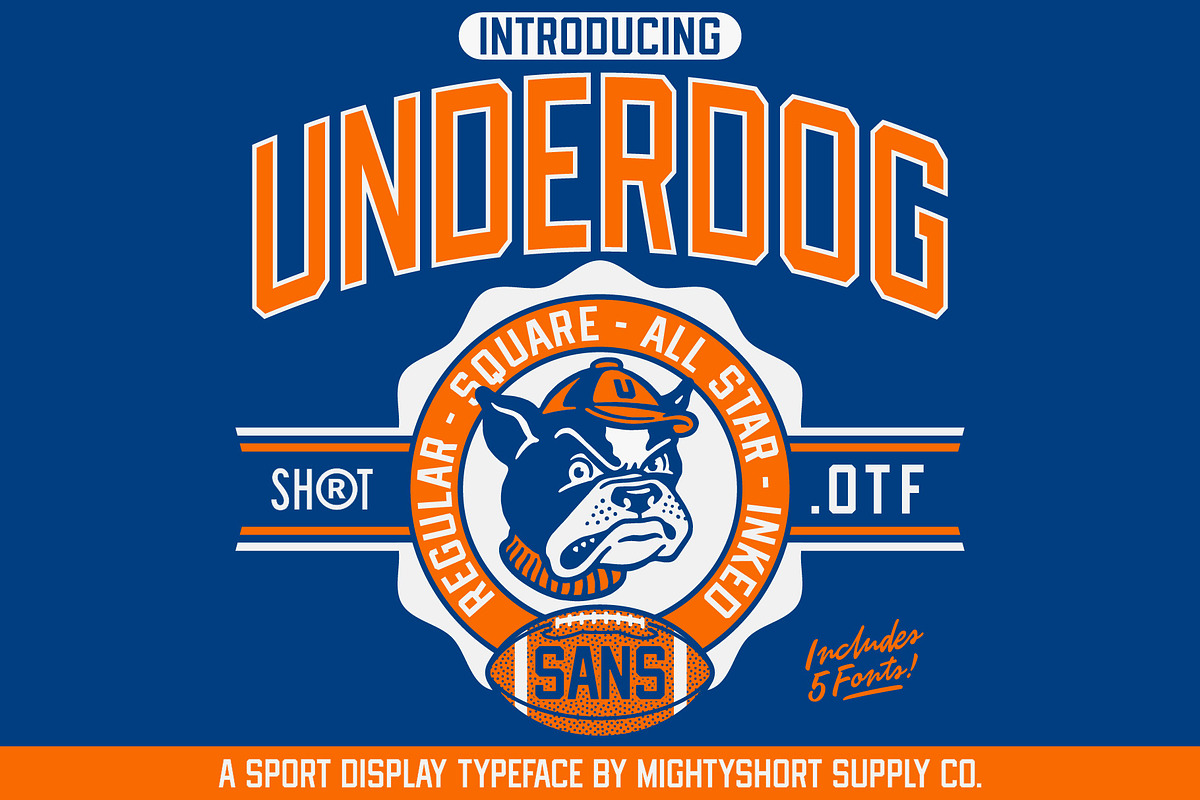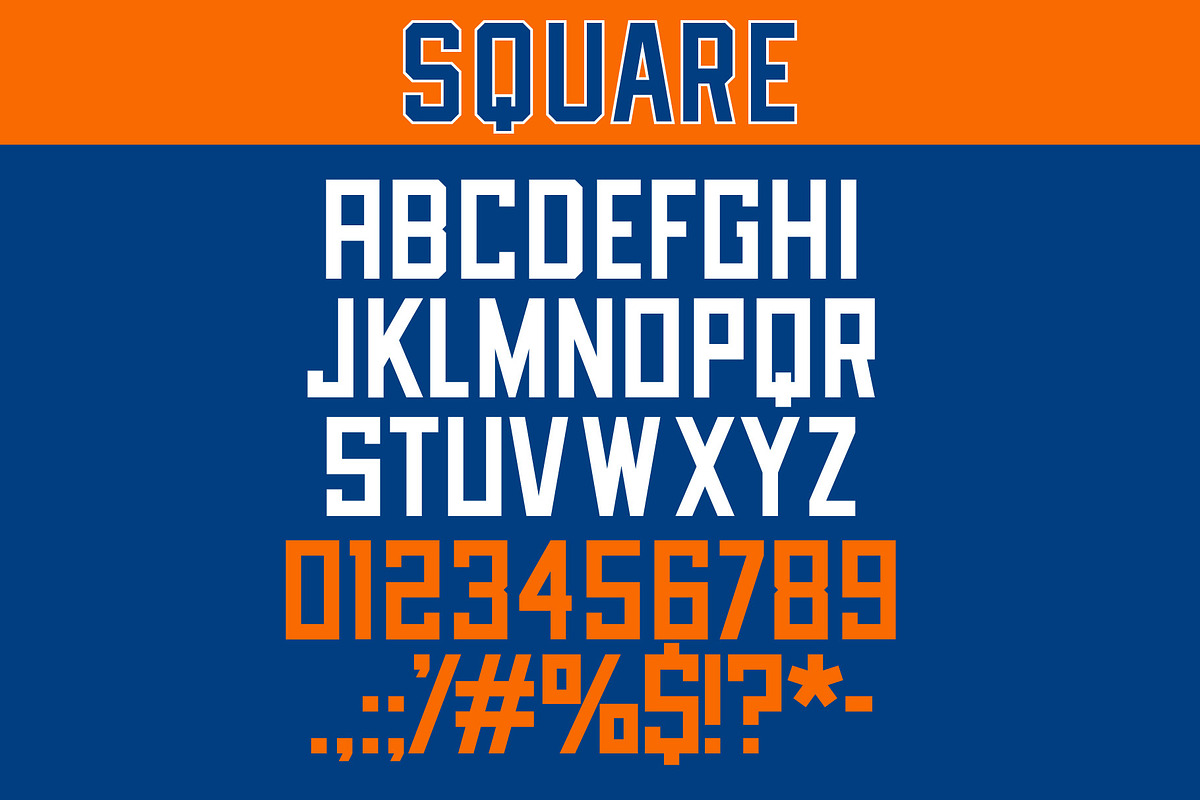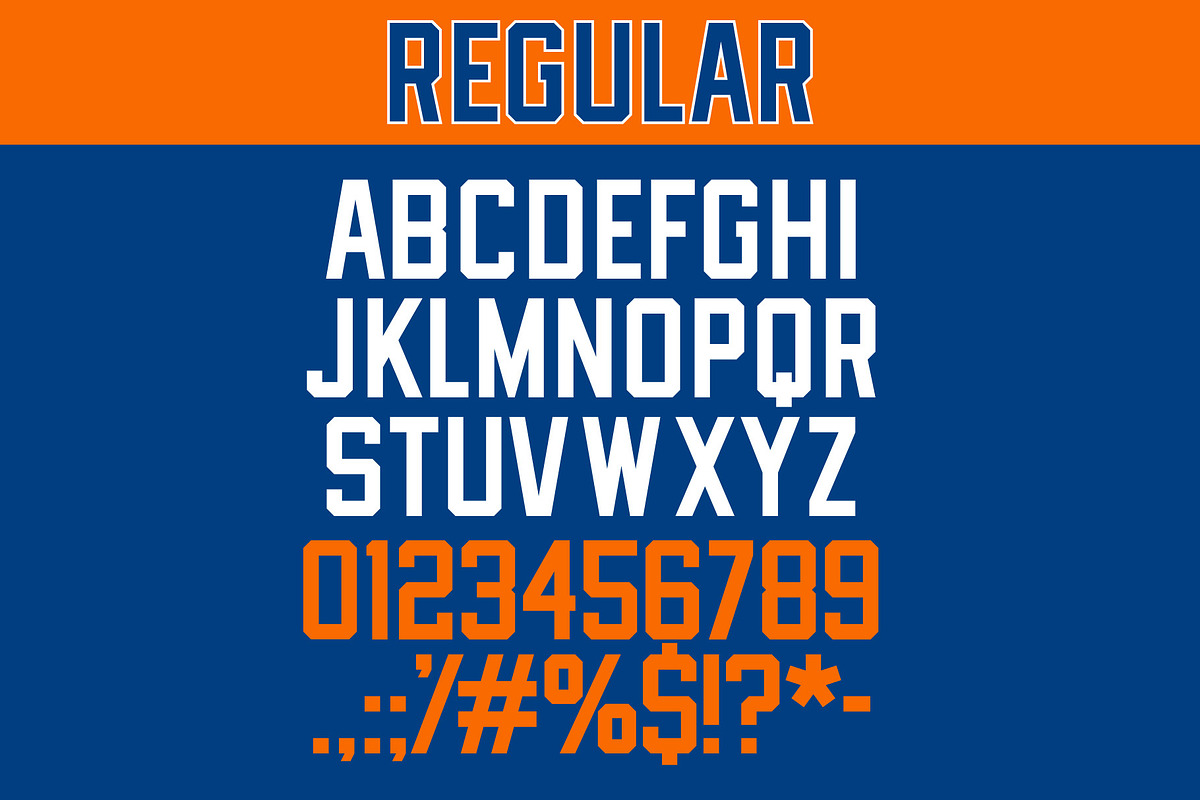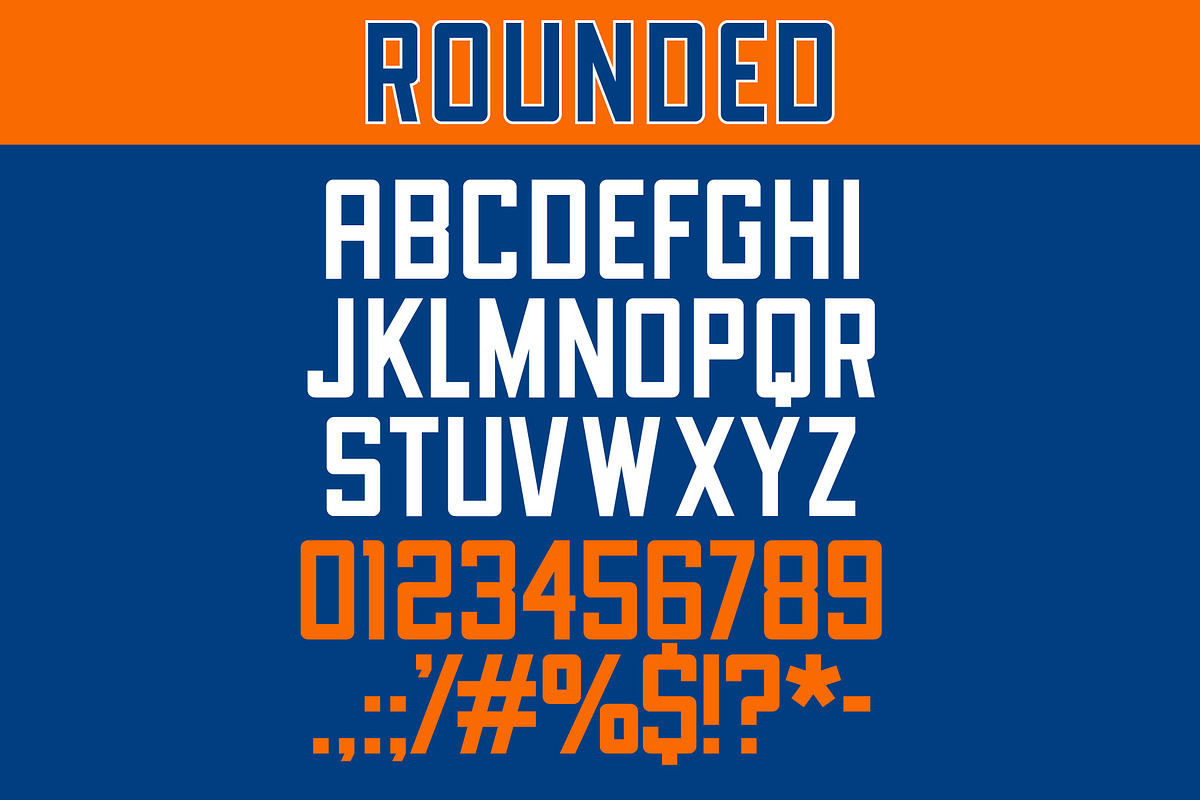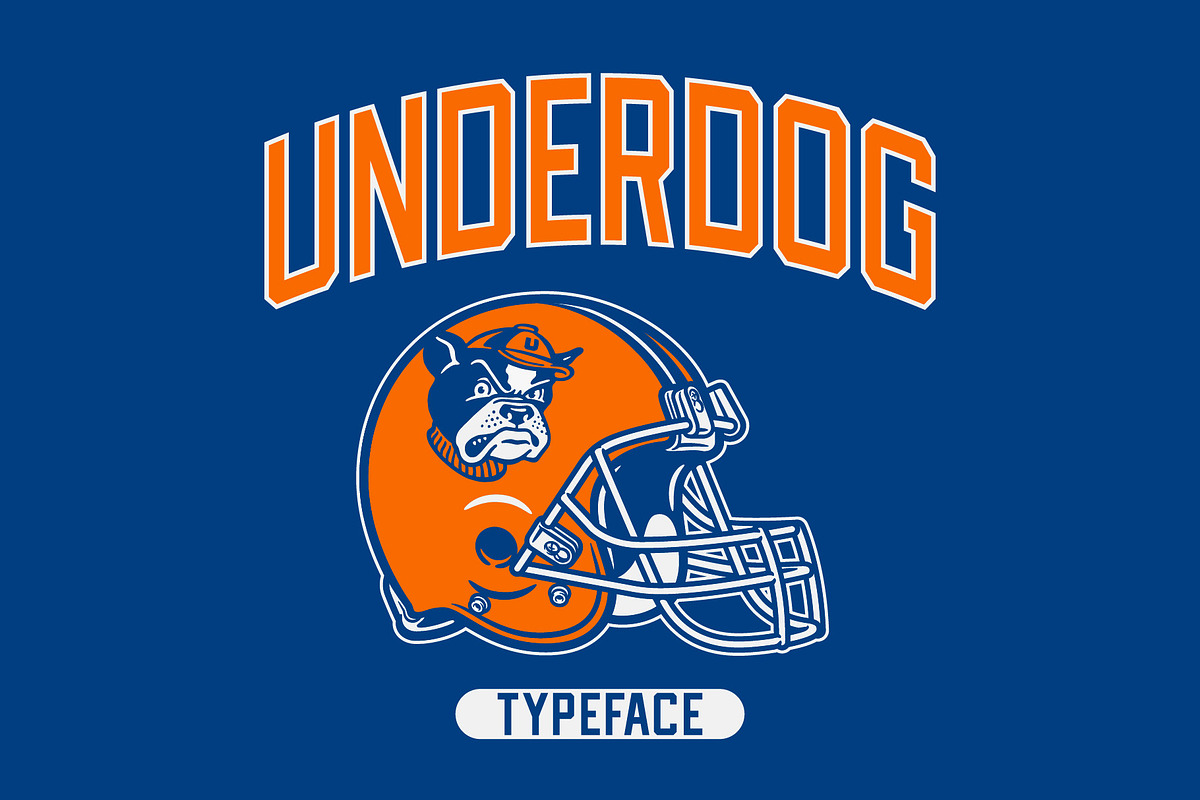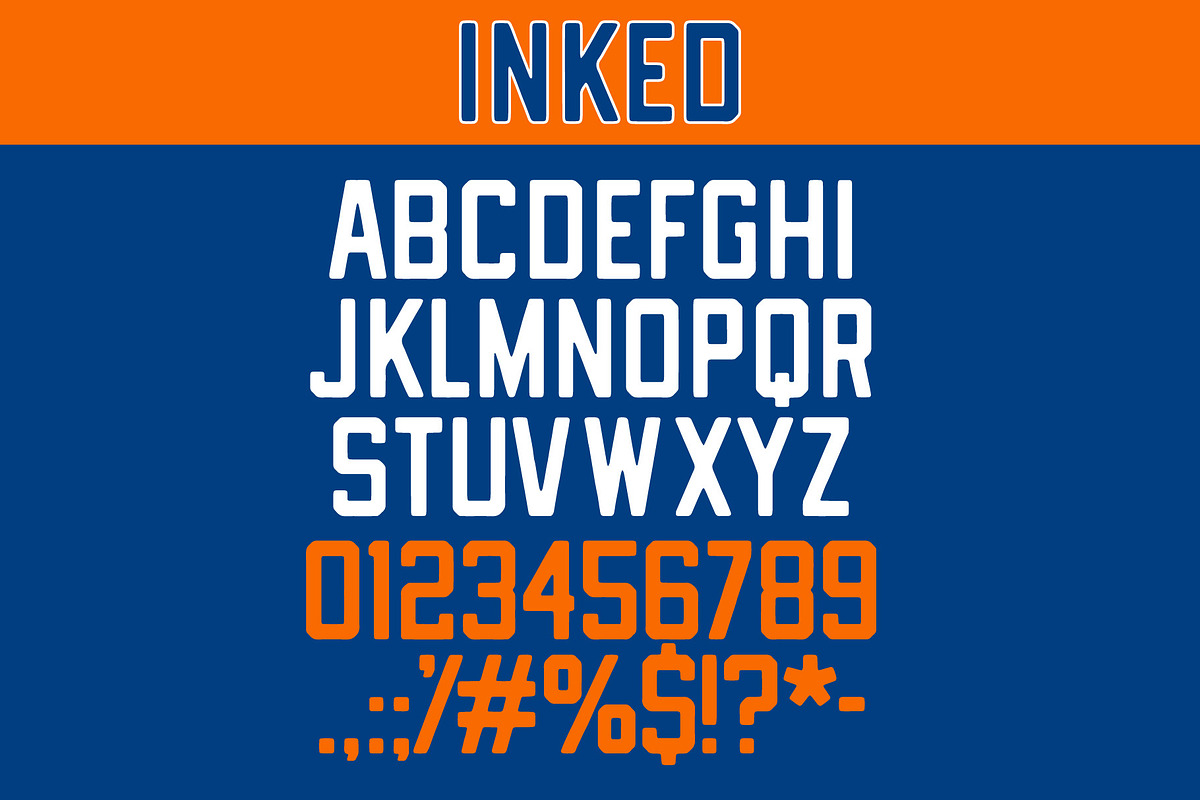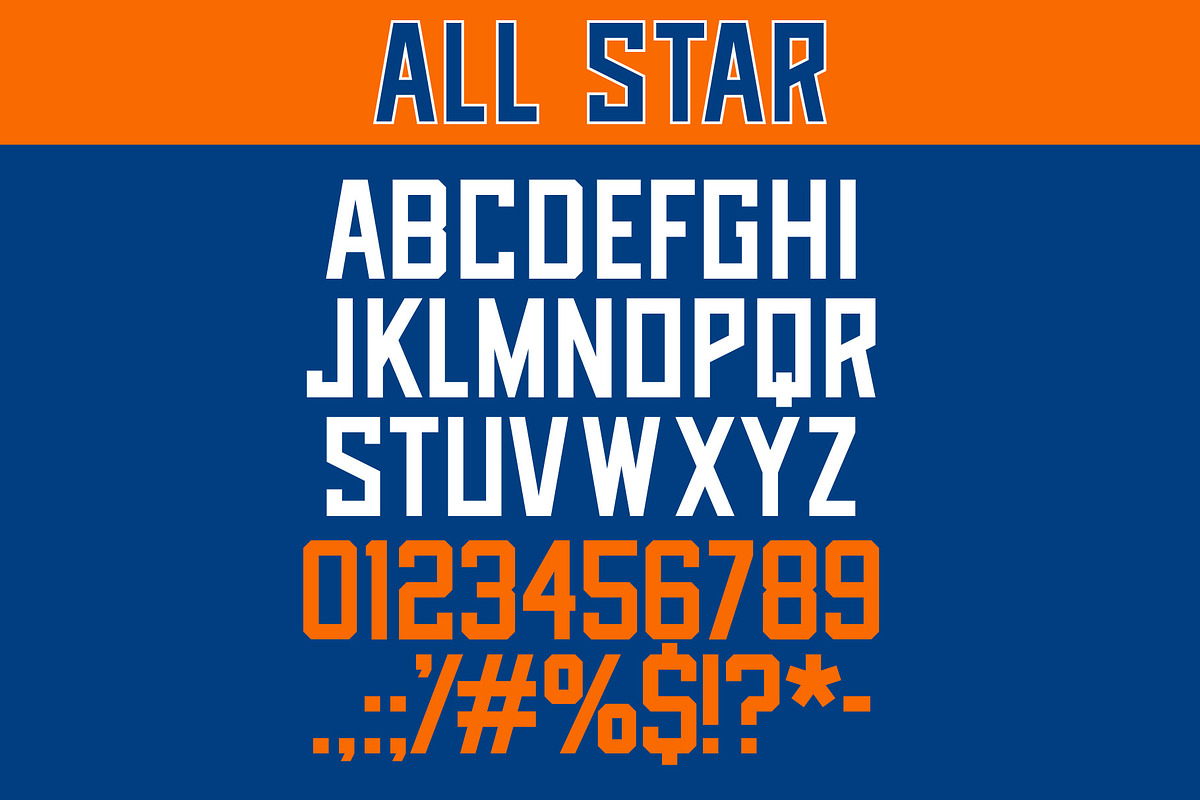
Underdog Sans Typface
Underdog Sans is now available! This versatile, timeless, and well designed typeface is inspired by the classic athletic aesthetic. The typeface includes 5 fonts: Underdog Sans Regular, Underdog Sans All Star, Underdog Sans Square, Underdog Sans Rounded and Underdog Sans Inked. The 5 fonts come with uppercase, numbers, punctuation and some alternate characters.